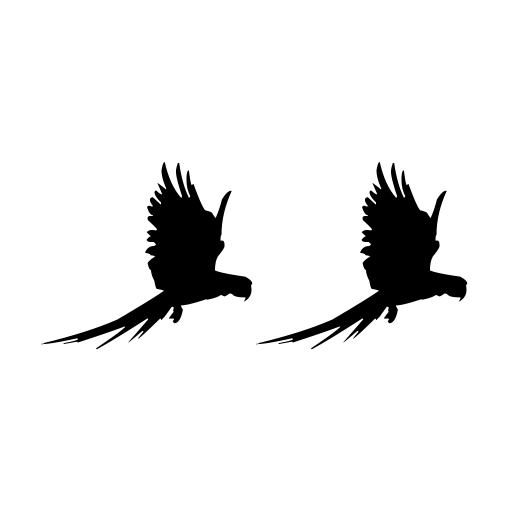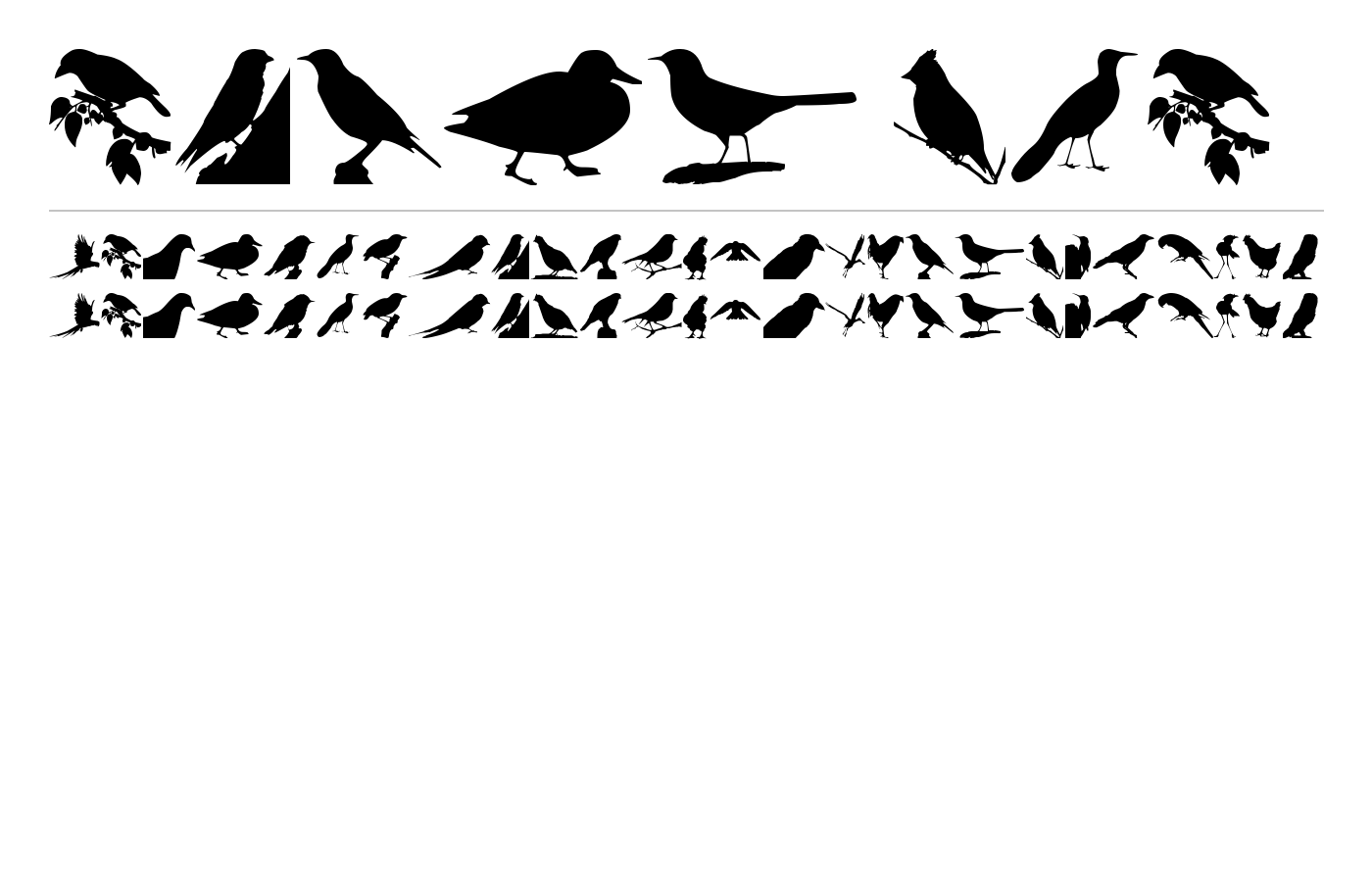
Birds TFB is a creative symbol font featuring detailed black silhouettes of various bird species in different poses, perfect for adding a natural, whimsical touch to designs. Its bold, solid shapes create clear, recognizable icons that work well for nature-themed logos, outdoor branding, and decorative accents in print or digital projects. This font is ideal for those looking to incorporate elegant, minimalist bird imagery without relying on detailed illustration.
Birds TFB Font
About Birds TFB Font
| Font family | Birds TFB Font |
| Designer | kaiser zhar khan |